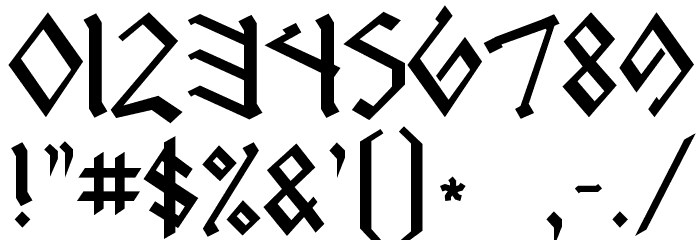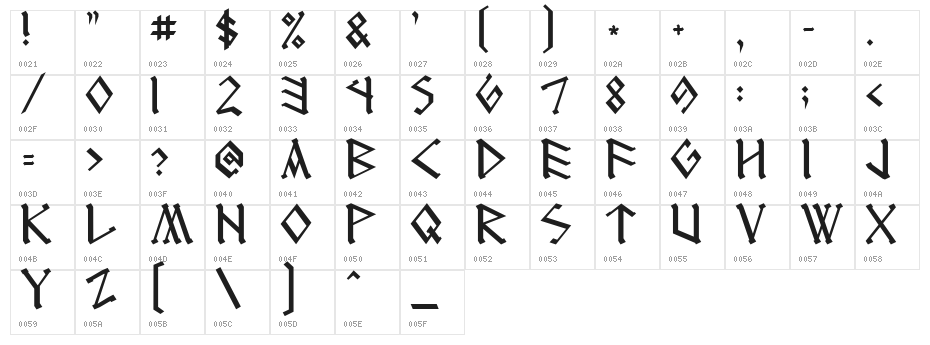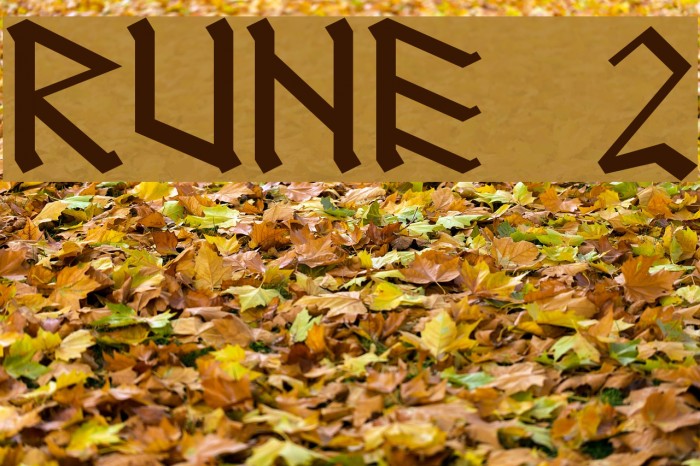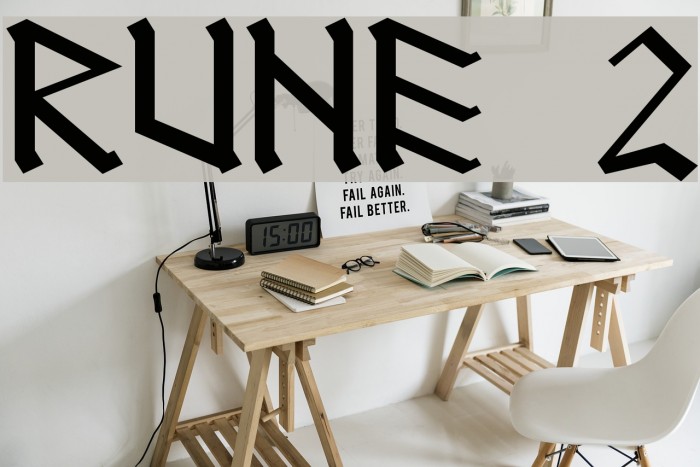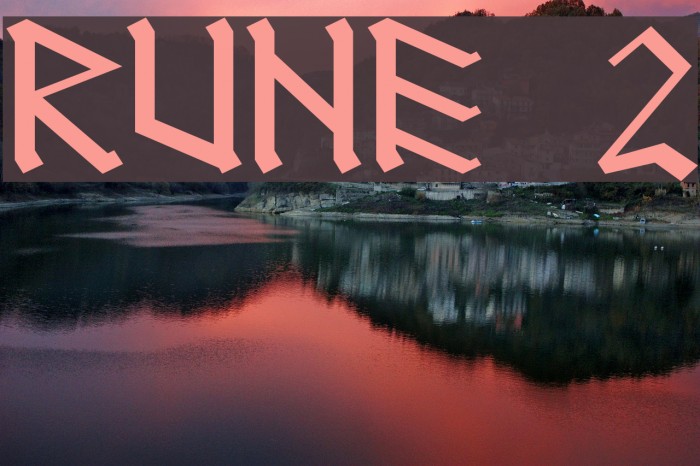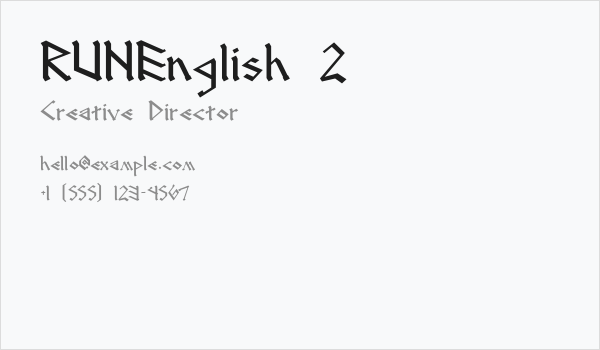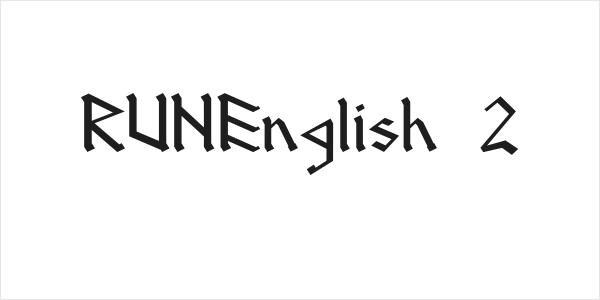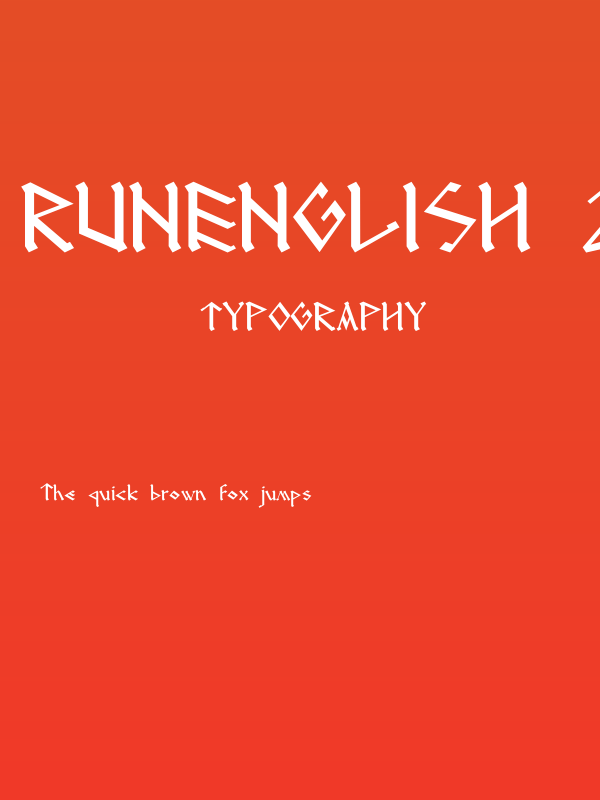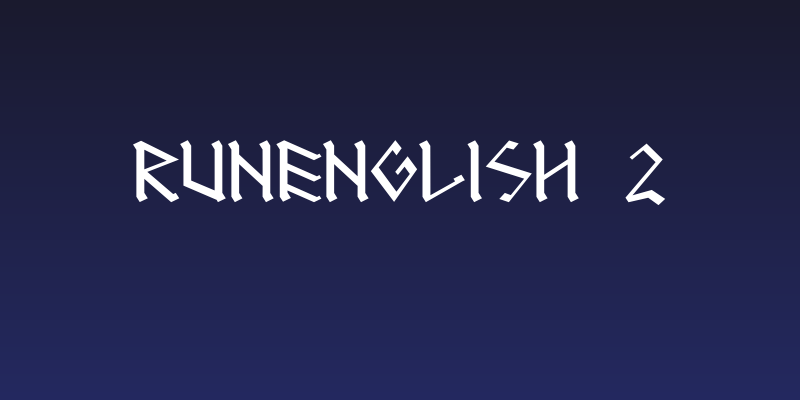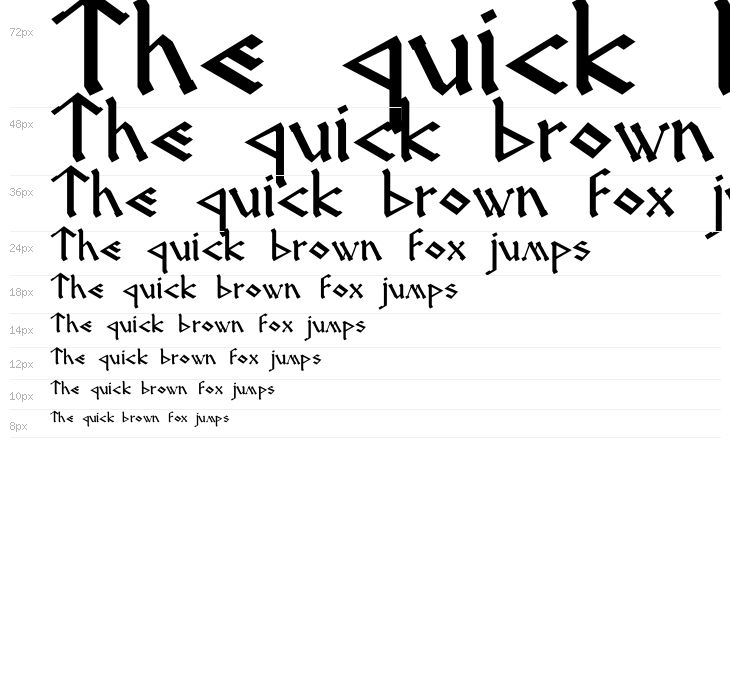
RUNEnglish 2 Font
RUNEnglish 2 Description
This font features a bold, angular design with a distinct medieval or gothic influence. The characters are sharply defined with pointed edges and a strong presence, reminiscent of traditional blackletter styles. The uppercase letters are particularly striking, with a uniform height and consistent angularity. Lowercase letters maintain the same angular aesthetic, offering a cohesive look across the typeface. Numbers and special characters follow the same stylistic cues, ensuring a harmonious appearance throughout. The font's unique style makes it suitable for projects that require a dramatic and historical feel.
Proposed ProjectsIdeal for use in fantasy-themed designs, historical event posters, or video game titles.